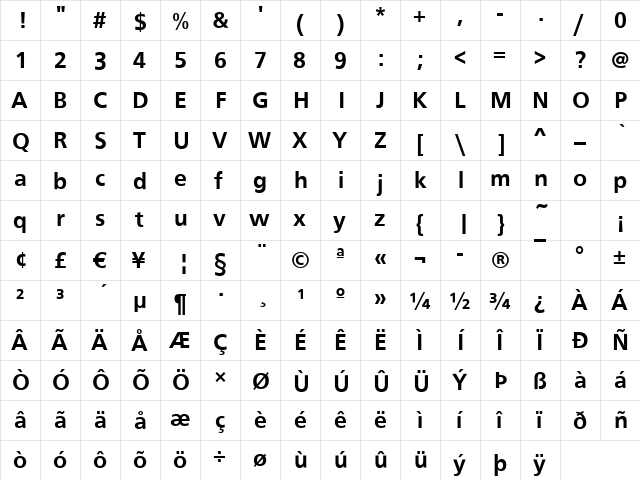
FrontPage Medium
Design Context for FrontPage Typeface
FrontPage offers clean, dependable letterforms without strong stylistic allegiance, making it a practical choice for designers who need flexibility.
Pro Tip: Use FrontPage in both headline and body roles to test its range before committing to a single application.